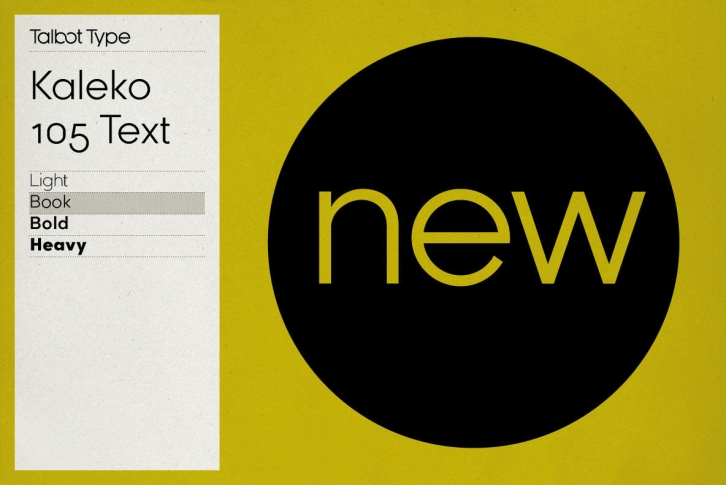
Kaleko 105 Text is the text specific variation of stablemate, Kaleko 105. With a shallower x-height and longer ascenders and descenders, its more traditional proportions make it more economical with space and better suited to continuous text. It's a well-balanced, versatile, modern sans, highly legible as a text font and with a clean, elegant look as a display font at larger sizes.
The Kaleko 105 Text family comprises of four weights and includes old style non-aligning (lower case) numbers, both proportional and tabular as well as accented characters for Central European languages. It is closely related to Kaleko 205 Text, which offers variations in some characters, most notably a two-storey lower case a and g.